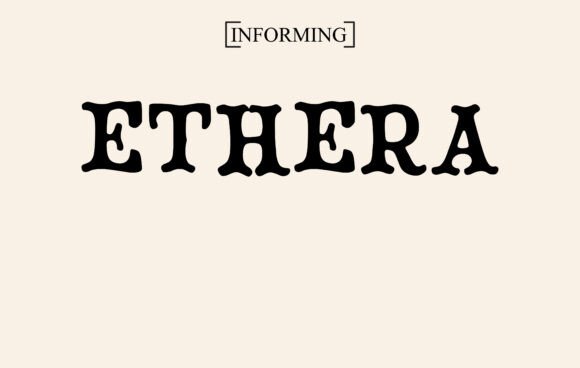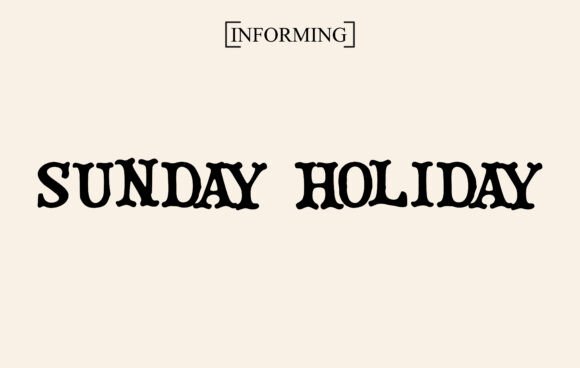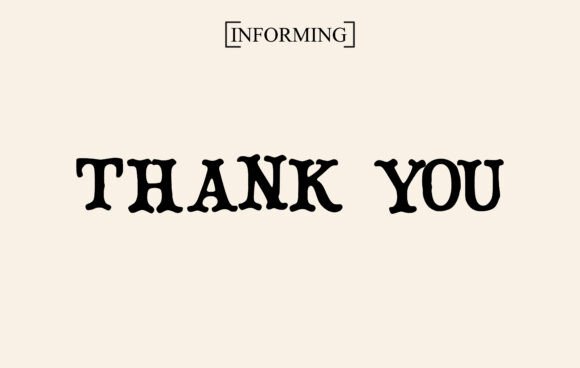
Ethera Font
About the Ethera Font
The Ethera Font offers a perfect balance of form and function for your design needs. This font is designed to be a true favorite and it has the potential to take your creative ideas to the highest level
Ethara’s strong, yet elegant, personality makes it ideal for headlines, logos, and short-form text in branding projects. Its refined letterforms also suit sophisticated packaging designs and high-end invitations. However, its less-than-optimal x-height makes it unsuitable for extended body copy or UI elements requiring high readability.
For a balanced pairing, consider complementing Ethara with a clean sans-serif like Open Sans for body text, creating a sophisticated contrast. Alternatively, a playful script font like Great Vibes could add a touch of whimsy for branding applications seeking a slightly more informal feel.
Ethara projects a modern, confident aesthetic, best suited for brands aiming for a premium or upscale image. Avoid using it in contexts that demand a casual or playful tone; its inherent elegance might feel incongruous.